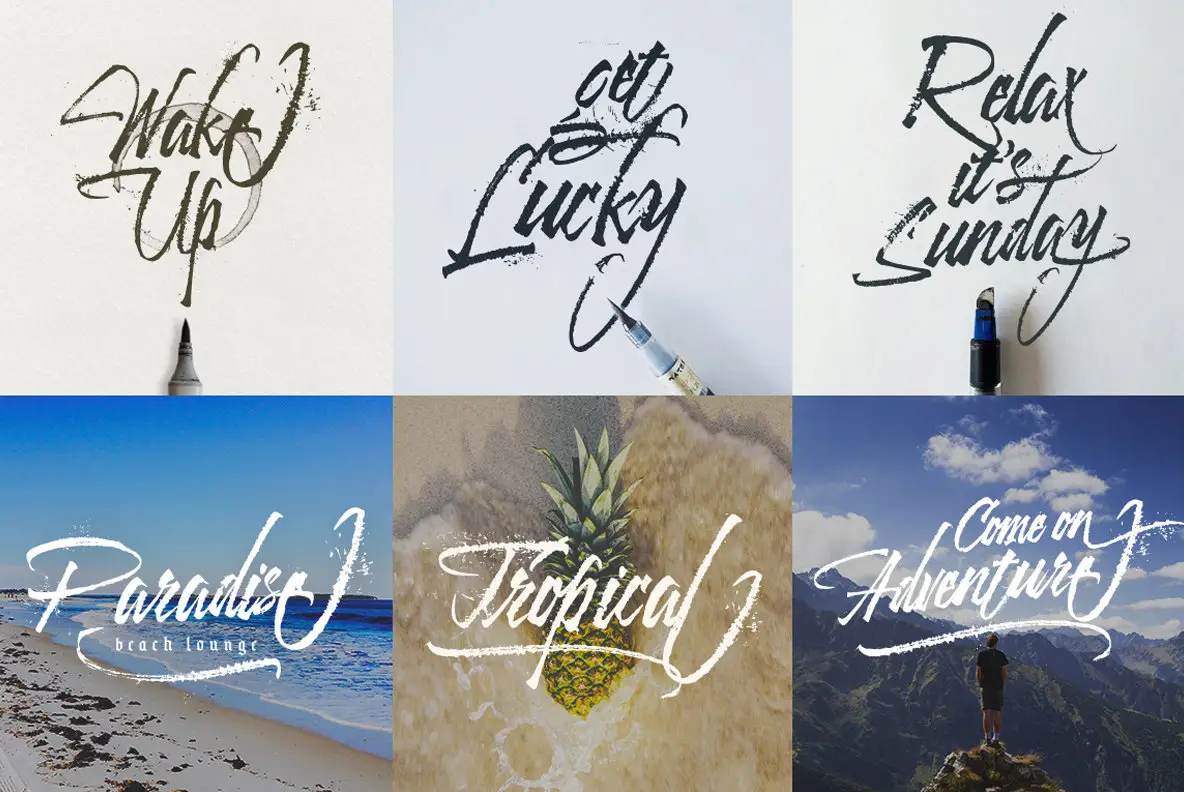
Good Vibes Font Fontpath
Good Vibes Font Fontpath Good vibes start, like all things, as indeterminate resonance before pure sunshine excites molecules into compelling people into the streets. listen for them in the electric hum that occupies time before all the best bass lines. If this free font (for personal use) is used for commercial purposes or violates the font usage terms (which is not allowed), a fine of $10,000 (ten thousand dollars) will be imposed.
Good Vibes Font Fontpath Download good vibes font for pc mac for free, take a test drive and see the entire character set. moreover, you can embed it to your website with @font face support. Download free good vibes font, view its character map and generate text based images or logos with good vibes font online. Creativity with good vibes: a hand painted typeface that adds custom hand lettering to your designs. Download good vibes font for windows and mac. good vibes font was designed by blkbk fonts and has been downloaded 101,854 times.
Vibes Font Fontpath Creativity with good vibes: a hand painted typeface that adds custom hand lettering to your designs. Download good vibes font for windows and mac. good vibes font was designed by blkbk fonts and has been downloaded 101,854 times.